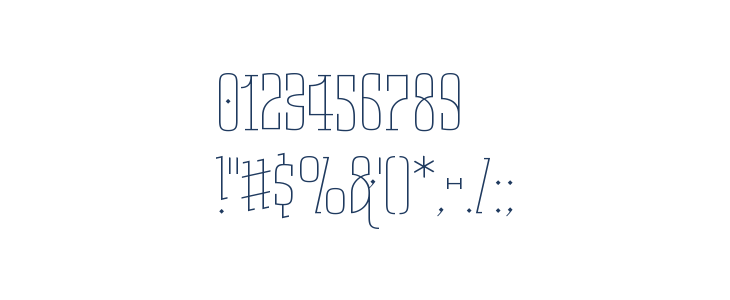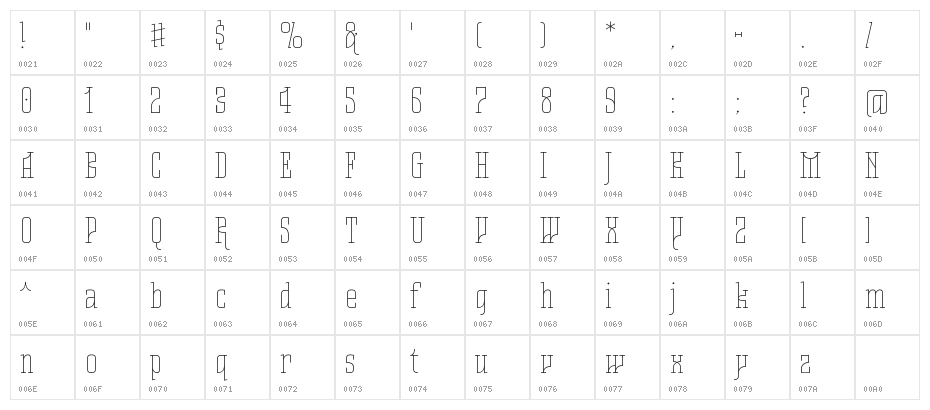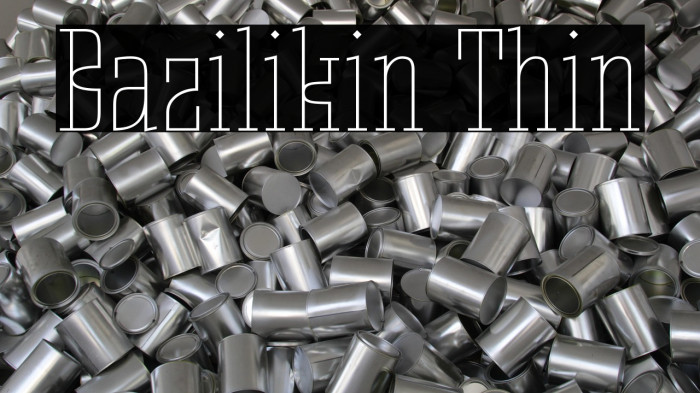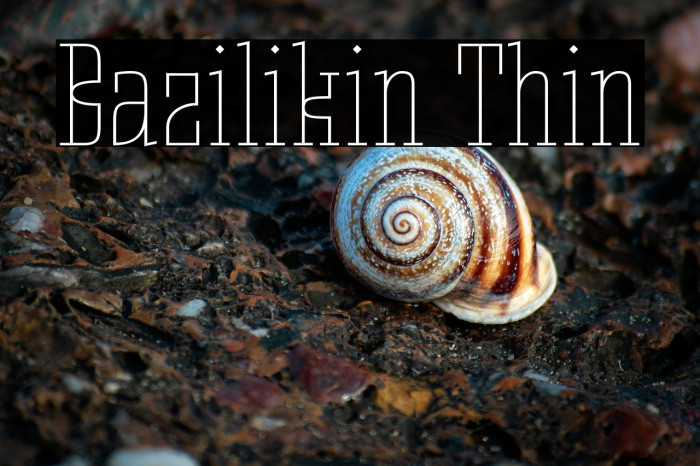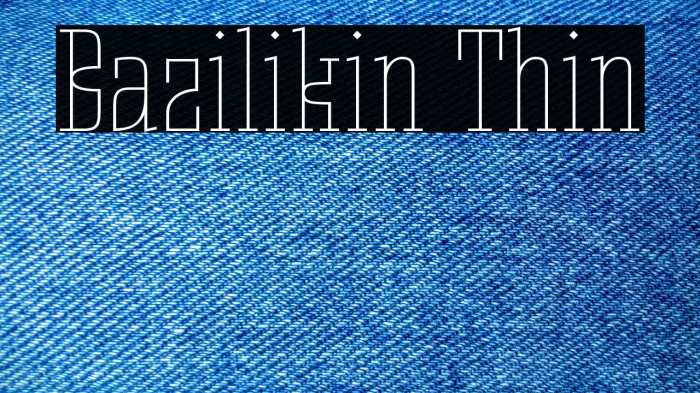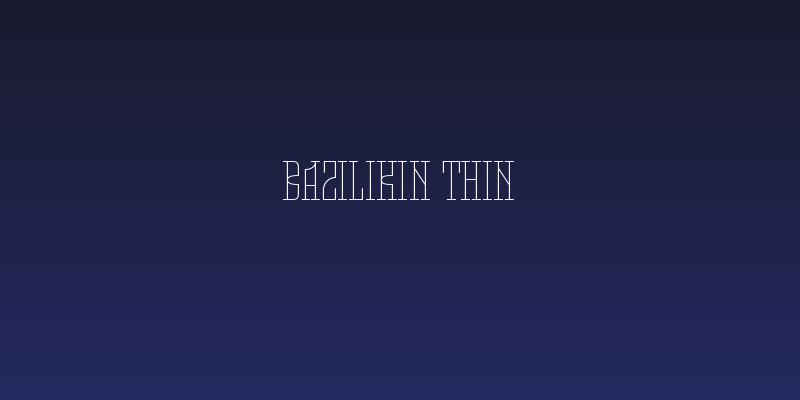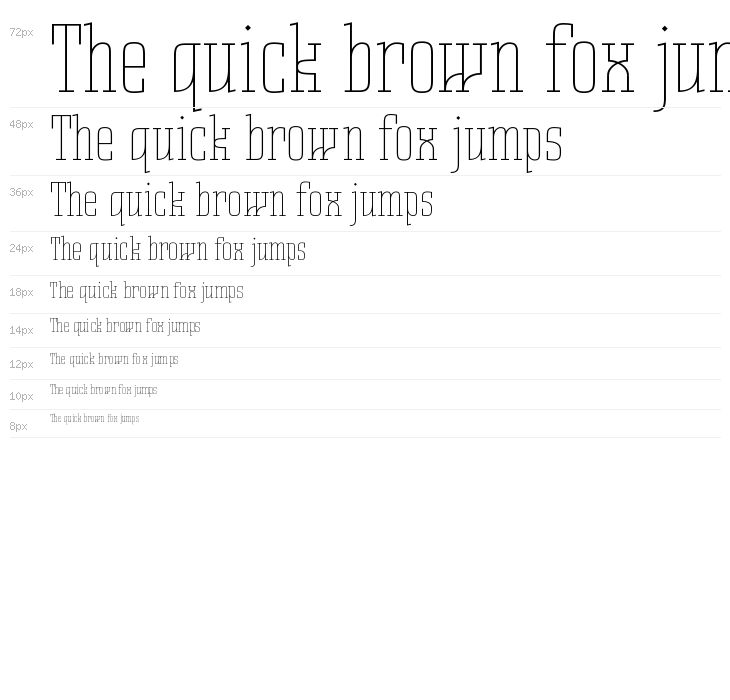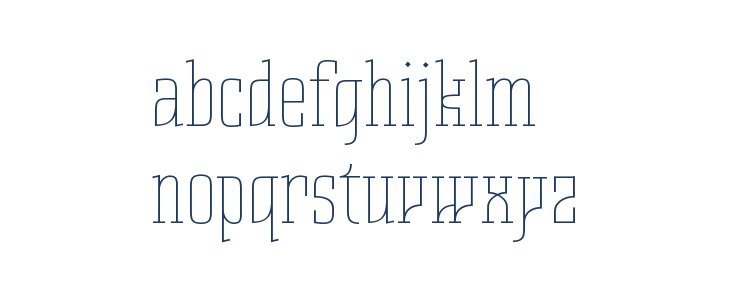
Bazilikin Thin Font
Bazilikin Thin Description
This font features a distinct and elegant design with elongated, narrow characters that exhibit a high level of sophistication. The uppercase letters are tall and slender, with a unique geometric flair that adds a modern touch. The lowercase letters maintain a consistent thinness, creating a harmonious balance across the typeface. Numbers and special characters follow the same stylistic approach, ensuring uniformity throughout. The overall appearance is sleek and refined, making it suitable for projects that require a touch of class and modernity.
| Proposed Projects | Ideal for fashion magazines, luxury branding, modern art posters, and minimalist design projects. |